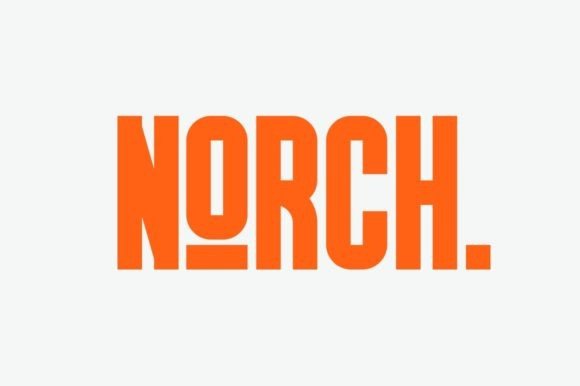
Norch Sans Serif Font
Norch is a very cool font for a design with sports themes: football, basketball, bowling, athletics, badminton, and others. With a strong display and clean nodes make a text in a design become more character and great.
Inspired by the current trend of sports texts with a very modern and cool geometric style.It is formed from a very carefully sports display font.